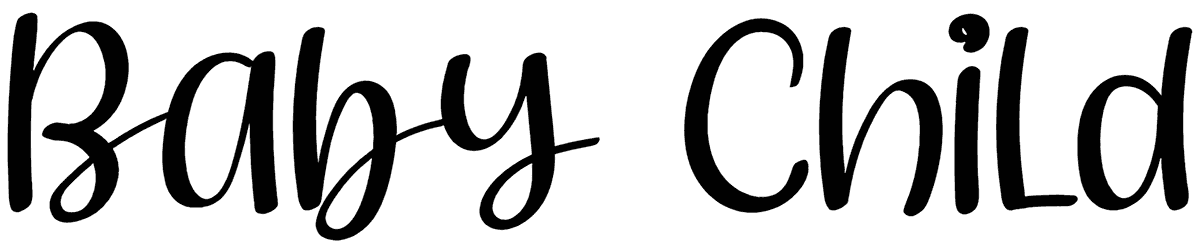
Baby Child Font
If attention to detail is essential to you and you are looking for an informal font with this feature, Baby Child can meet your needs.
This baby font has dynamic letters that can be a delightful spice for your writing and add excitement and playfulness. Natural connections and smooth curves in this script font make the eye very comfortable when reading it and can communicate with the writing on packaging, clothing, and tattoos.
Baby Child is a chic and trendy handwritten font. Whether you’re looking for fonts for Instagram or calligraphy scripts for DIY projects, this font will turn any creative idea into a true piece of art!